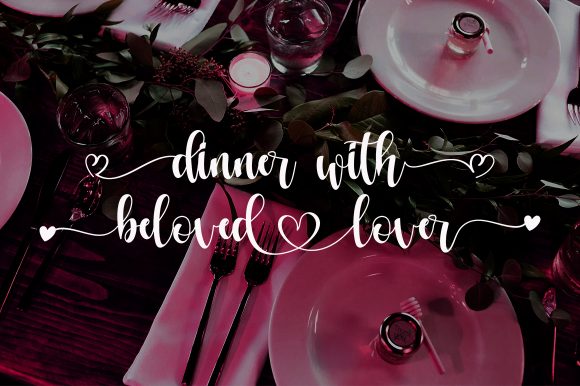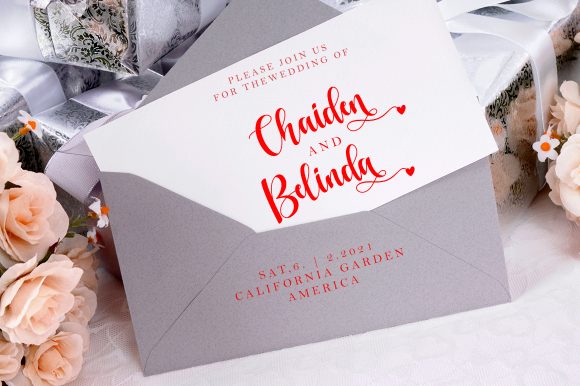
Love Moment Font
db-ku.com - Script & Handwritten -- Love Moment is a modern, jolly and romantic handwritten font. Whatever the topic, this font will be a wonderful asset to your font library, as it has the potential to enhance any creation.